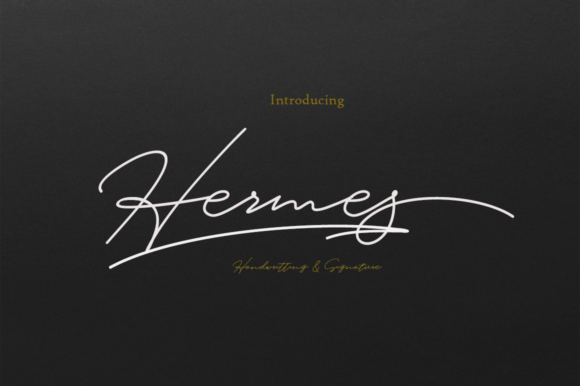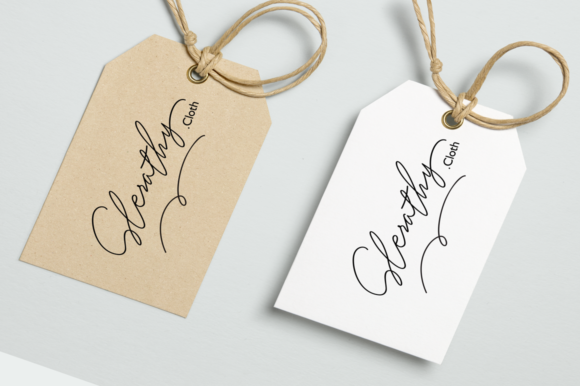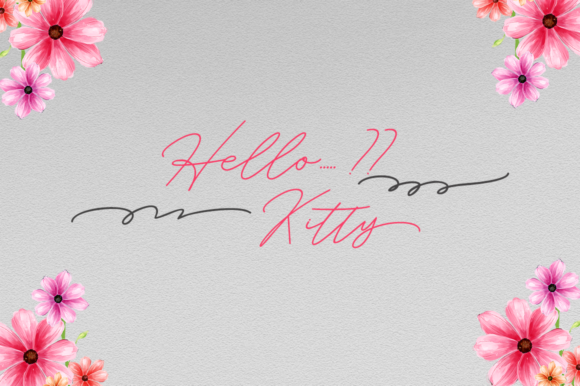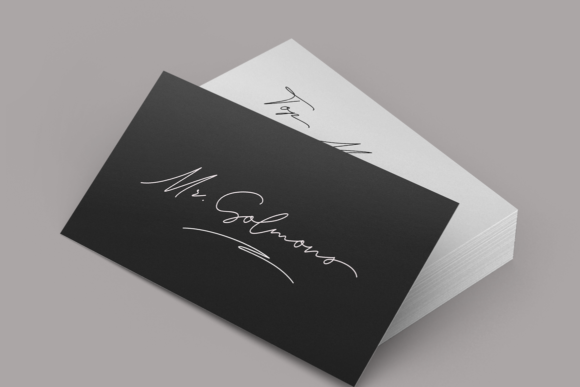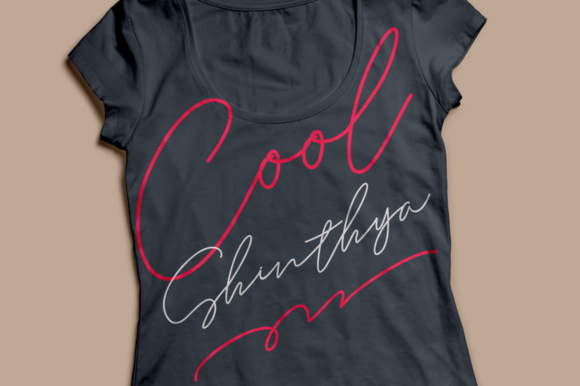
Hermes Font
About Hermes Font
The Hermes is a monoline signature font. It has a natural writing style and unique forms of calligraphy. Perfect for adding a personal touch to your designs!